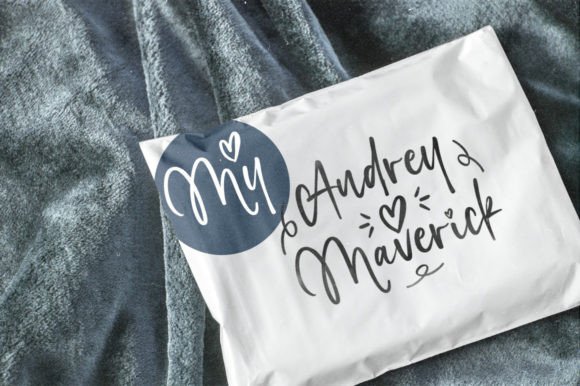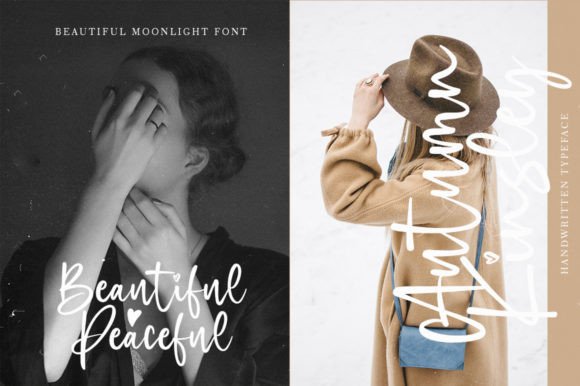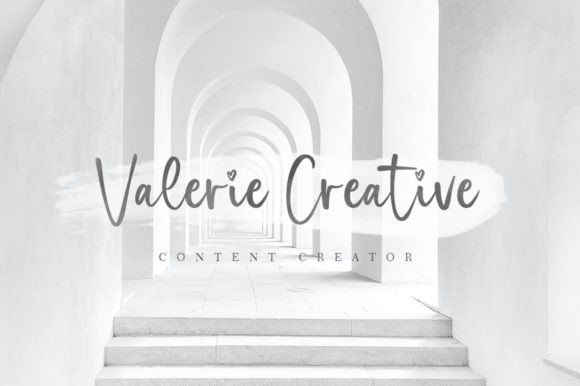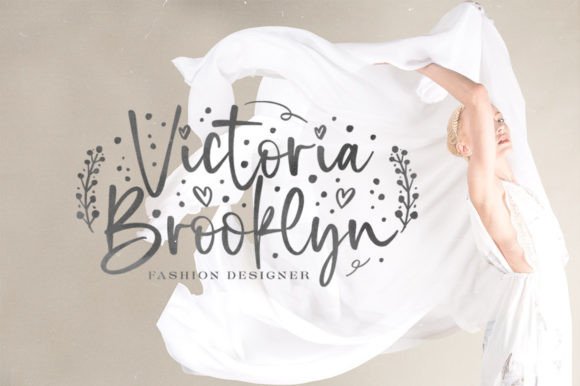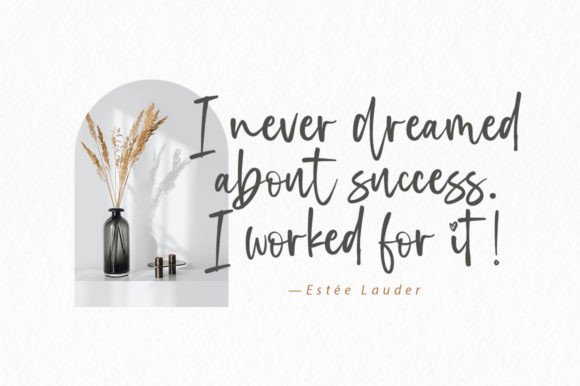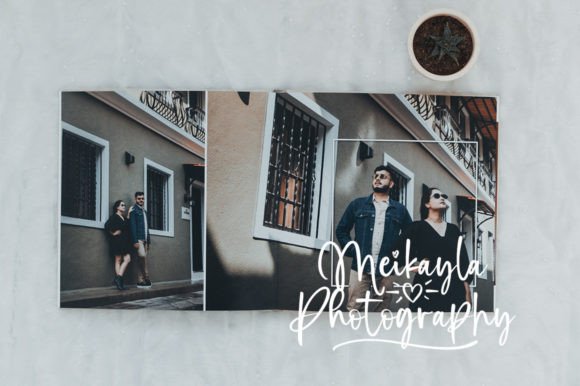
When Design Meets Romance
Have you ever been working on a project and suddenly, the perfect font appears in your mind? For designers, this moment of creative clarity can be a game-changer. It’s a spark that ignites the entire design process, guiding the way to a beautiful and cohesive final product. For me, that moment happened when I discovered the Beautiful Moonlight Font. Its romantic and elegant script style perfectly captured the essence of love and sophistication I was trying to convey.
The Beautiful Moonlight Font is more than just a pretty face – it’s a valuable tool for designers looking to add a touch of elegance to their projects. With its delicate lines, dainty curves, and graceful swashes, it’s sure to make any design stand out. And with its PUA encoding, accessing all the delightful glyphs and swashes is effortless.
Beautiful Moonlight Font Key Features
- Font Family: Beautiful Moonlight
- Unique Characteristics:
- High-resolution design for crisp and clear readability
- Unique, elegant script style with subtle flair
- Perfect for wedding invitations, romantic designs, and elegant typography
Designer Review: Beautiful Moonlight Font
I recently had the chance to work with the “Beautiful Moonlight Font” and I must say it’s a unique and intriguing addition to any design project. ✨ One thing that really stands out is its elegant and whimsical aesthetic, perfect for capturing the essence of a romantic evening under the stars.
Here are some of the key features that I appreciate:
- ✨ Unique letterforms that add a touch of magic to any text
- ✨ Excellent for use in invitations, greeting cards, or any other romantic-themed project
- ✨ The subtle gradient effect gives the font a sense of depth and dimensionality
- ⚠️ May be difficult to read in smaller font sizes due to the ornate details
- ⚠️ Can be overwhelming if used in large blocks of text
- ⚠️ Limited character set, may not be suitable for extended text passages
Overall, I would say that the “Beautiful Moonlight Font” is a great choice for designers looking to add a touch of romance and whimsy to their projects. While it may have some limitations, its unique aesthetic and elegant feel make it a great addition to any design collection.
Tips for Getting the Most Out of Beautiful Moonlight Font
For best results, use Beautiful Moonlight Font with a light background to showcase its elegant and whimsical design. Experiment with different font sizes and combinations to create a unique visual effect.
Beautiful Moonlight Font is ideal for:
- Book covers and interior design
- Event branding and signage